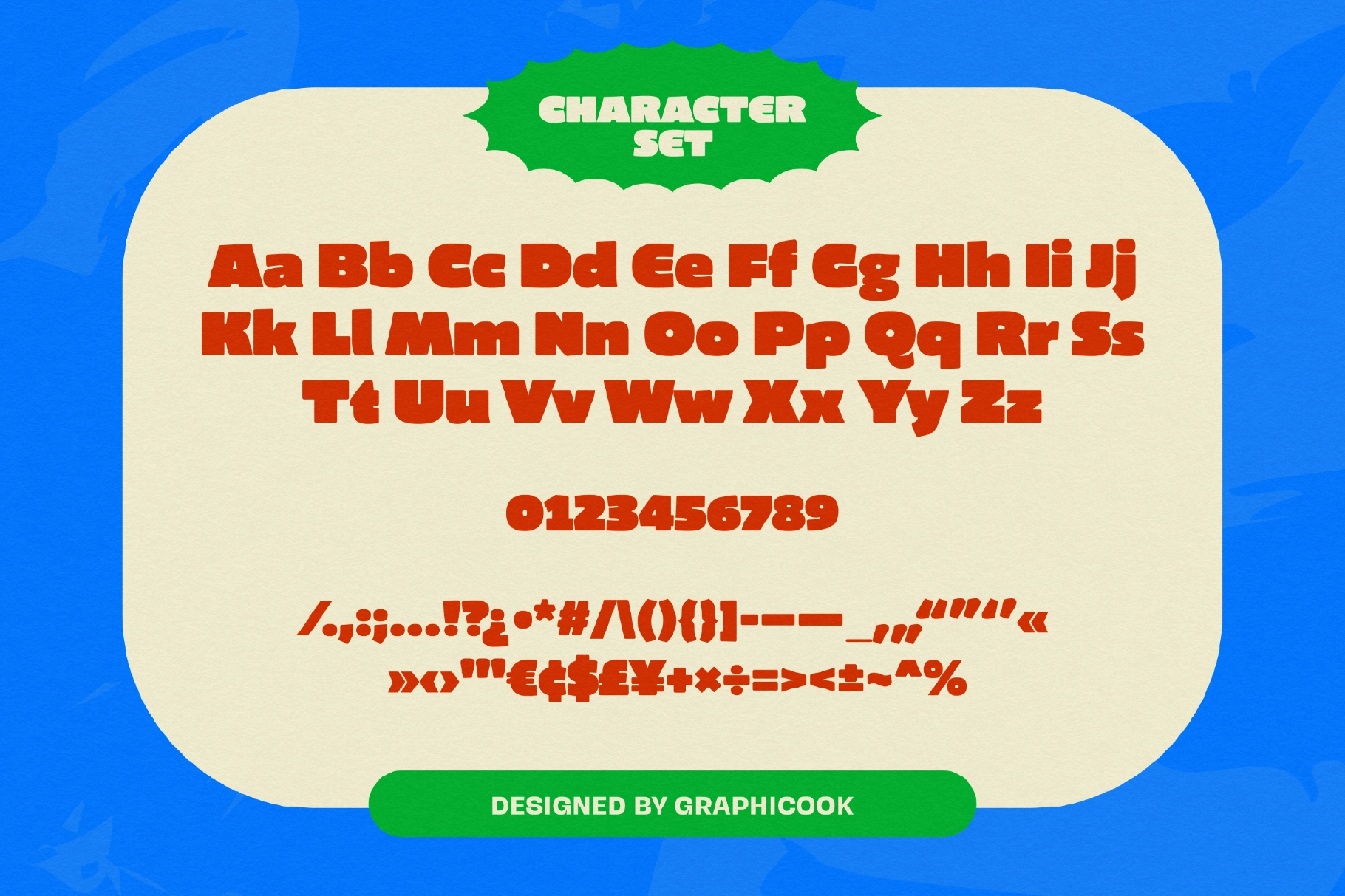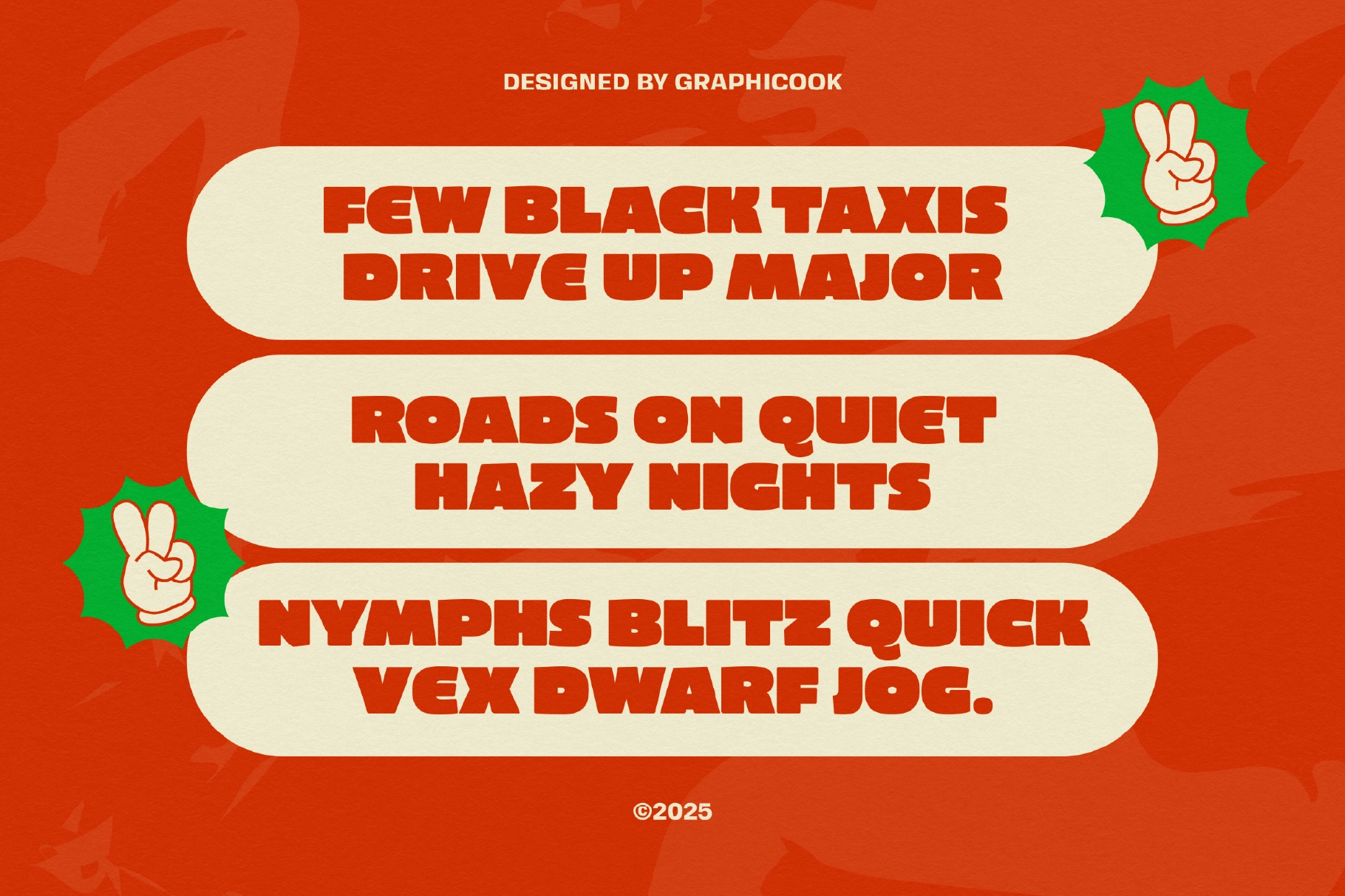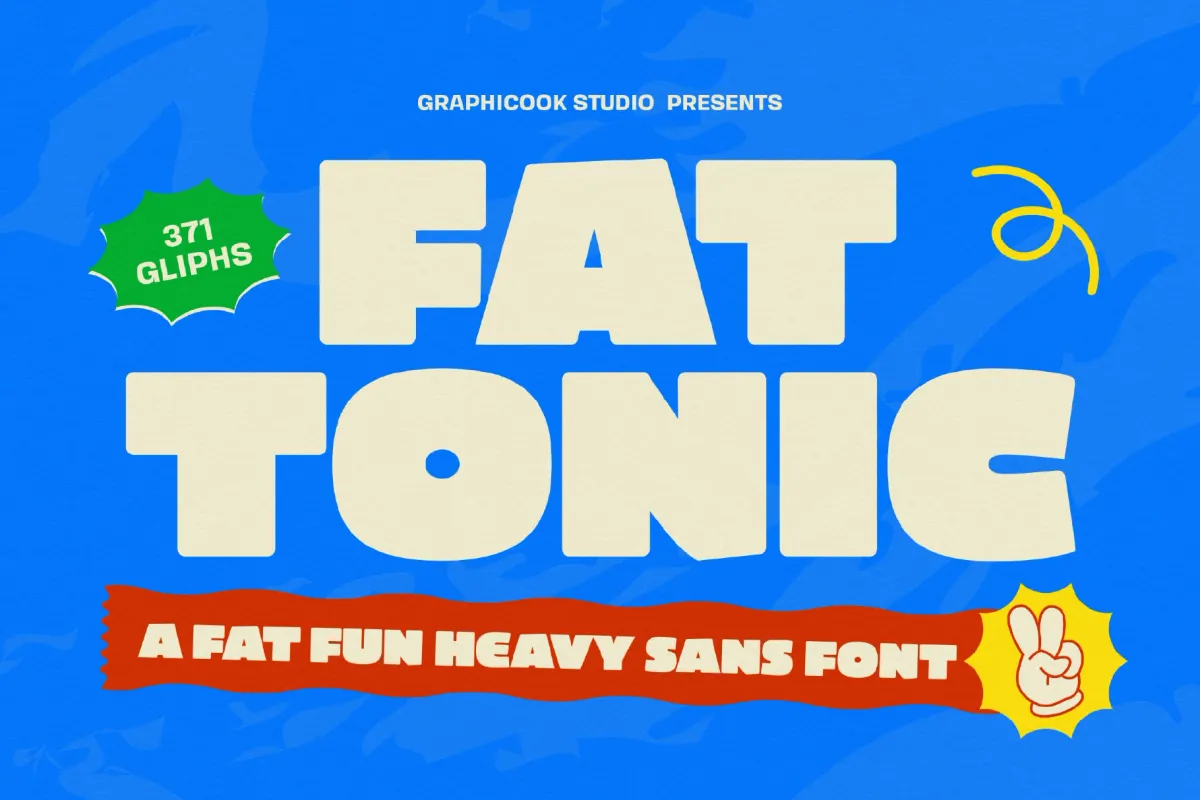
Fattonic Font
Fattonic
Fattonic is an experimental font with thick, wide letterforms and a retro flair. It’s great for logos, headlines, or designs with pop-art and nostalgic aesthetics.